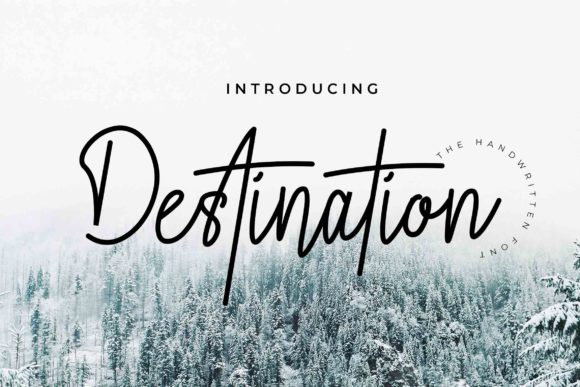
Unveil the Beauty of Destination Font: A Script Font Family Perfect for Wedding Welcome Signs
Journey into the realm of elegance and grace with Destination Font, a meticulously crafted script font family that will transform your designs into captivating works of art. Inspired by the allure of handwritten letters, Destination boasts distinct and well-balanced characters that dance harmoniously across the page.
Immerse yourself in the versatility of Destination Font, a font that effortlessly adapts to a myriad of creative endeavors. Whether you're designing wedding invitations that exude romance, creating captivating social media posts, or crafting personalized logos that leave a lasting impression, Destination Font is your trusted companion.
Let your creativity soar as you explore the endless possibilities of Destination Font. Its delicate strokes and refined curves add a touch of sophistication to any project, while its readability ensures that your message is conveyed with clarity and impact.
Picture this: a stunning wedding welcome sign adorned with the enchanting script of Destination Font. Its graceful letters intertwine seamlessly, creating an atmosphere of warmth and elegance that welcomes guests to your special day. As they step into your venue, they are greeted by the charm and beauty of Destination Font, setting the tone for a truly unforgettable celebration.
With Destination Font, you unlock a world of creative possibilities. Its versatility extends beyond wedding designs, making it an ideal choice for branding projects, logo designs, and marketing materials. Imagine your brand's logo rendered in the sophisticated script of Destination Font, conveying a sense of timeless elegance and sophistication. Or envision your marketing materials adorned with the captivating allure of Destination Font, capturing attention and leaving a lasting impression on your audience.
Destination Font is more than just a font; it's an artistic expression that elevates your designs to new heights. Its exquisite craftsmanship and boundless versatility make it the perfect choice for designers seeking to create truly exceptional work.